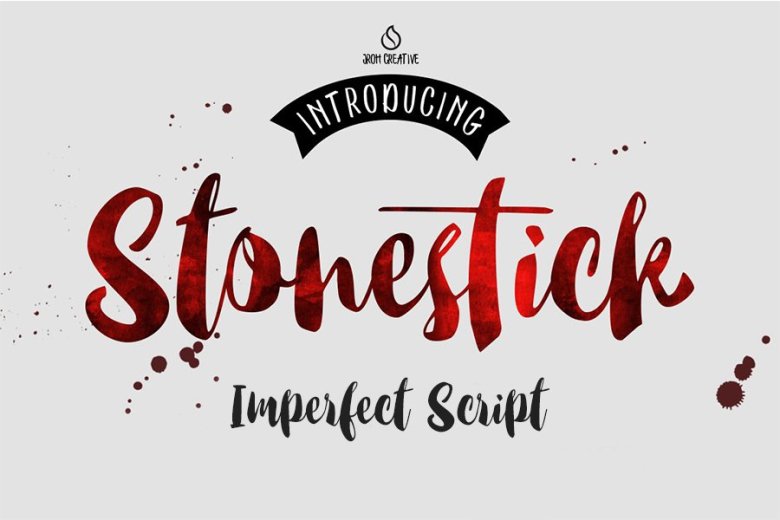
Stonestick Imperfect Script
Here’s a new collection beautiful font Stonestick. Imperfect brush font, bold, solid and smooth. Make a stronger and powerful character to complement the needs of your design project.
Stonestick package is perfect for making design: posters, a variety of quotes, header, logo design, blog headers, all kinds of covers, t-shirts, mugs, etc.